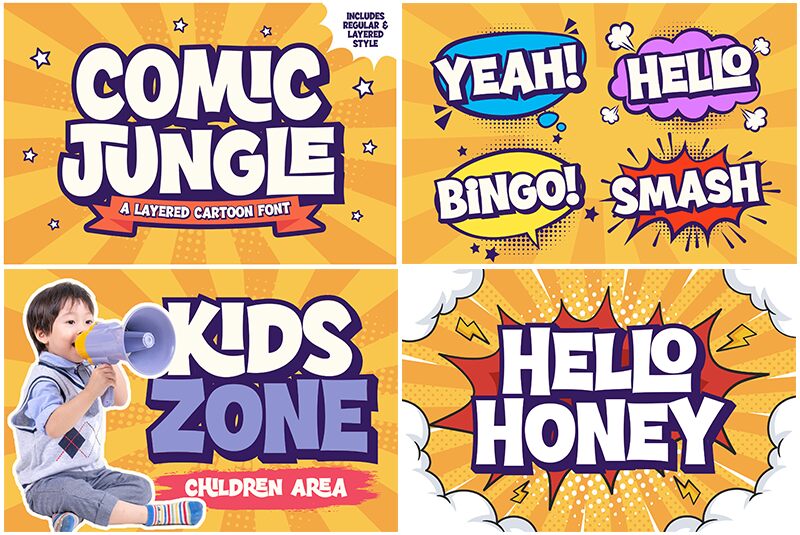
Comic Jungle Extrude
Comic Jungle Extrude font by Blankids is a free bold cartoon display font. Built within the Comic Jungle family, it pops with thick, inky outlines and a chunky extrude that feels like foam letters stacked off the page. The shapes are bouncy and slightly irregular, giving each word a playful thump while keeping strokes compact and high-contrast for instant readability at a glance.
Using Comic Jungle Extrude, headlines jump off kids’ book covers, cartoon logos, snack packaging, birthday invites, jungle‑themed posters, game splash screens, and YouTube thumbnails. This free font loves big sizes and stacked lines; pair it with a clean geometric sans for small captions to let the extruded letters stay loud and fun without crowding the layout.